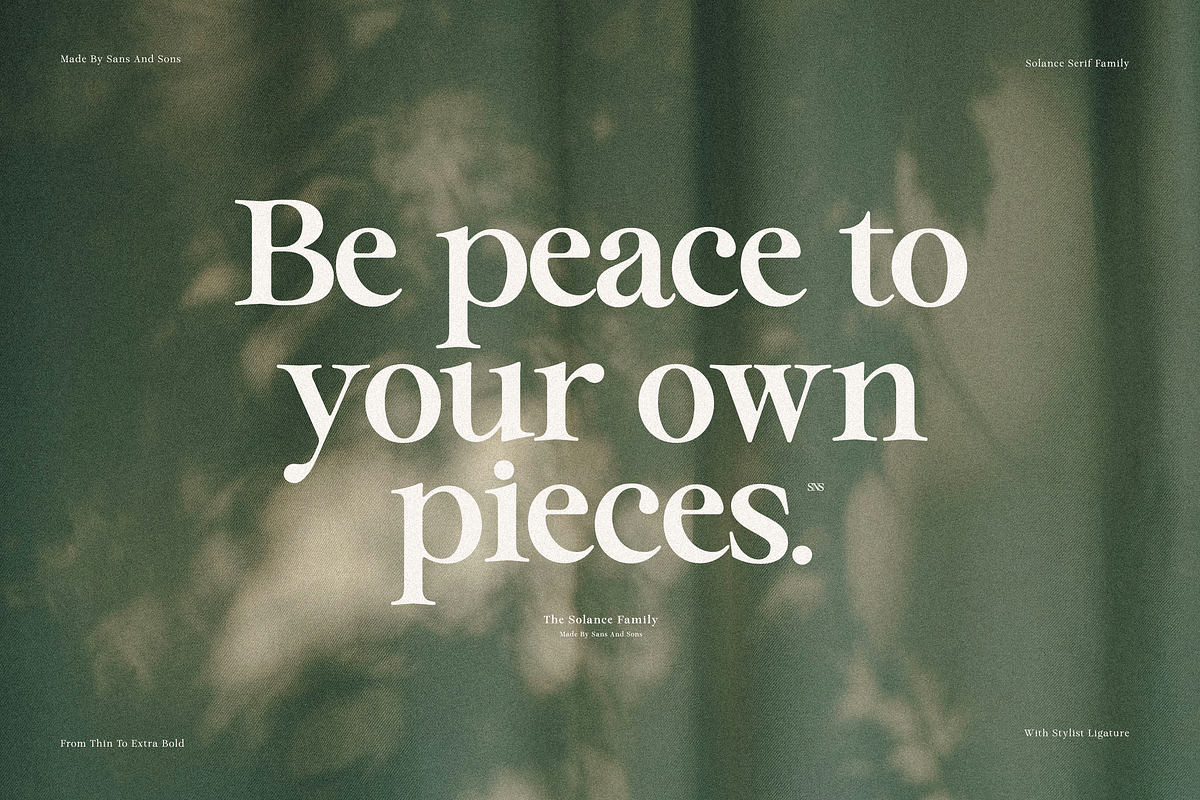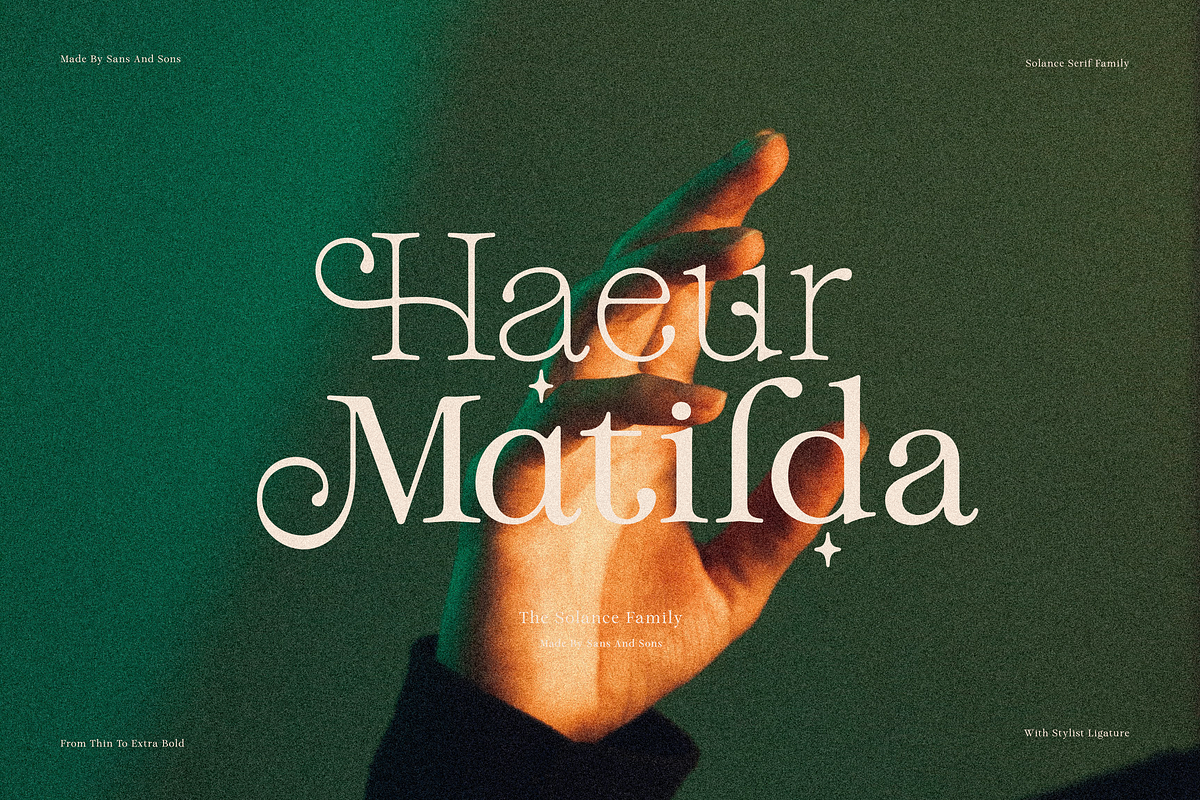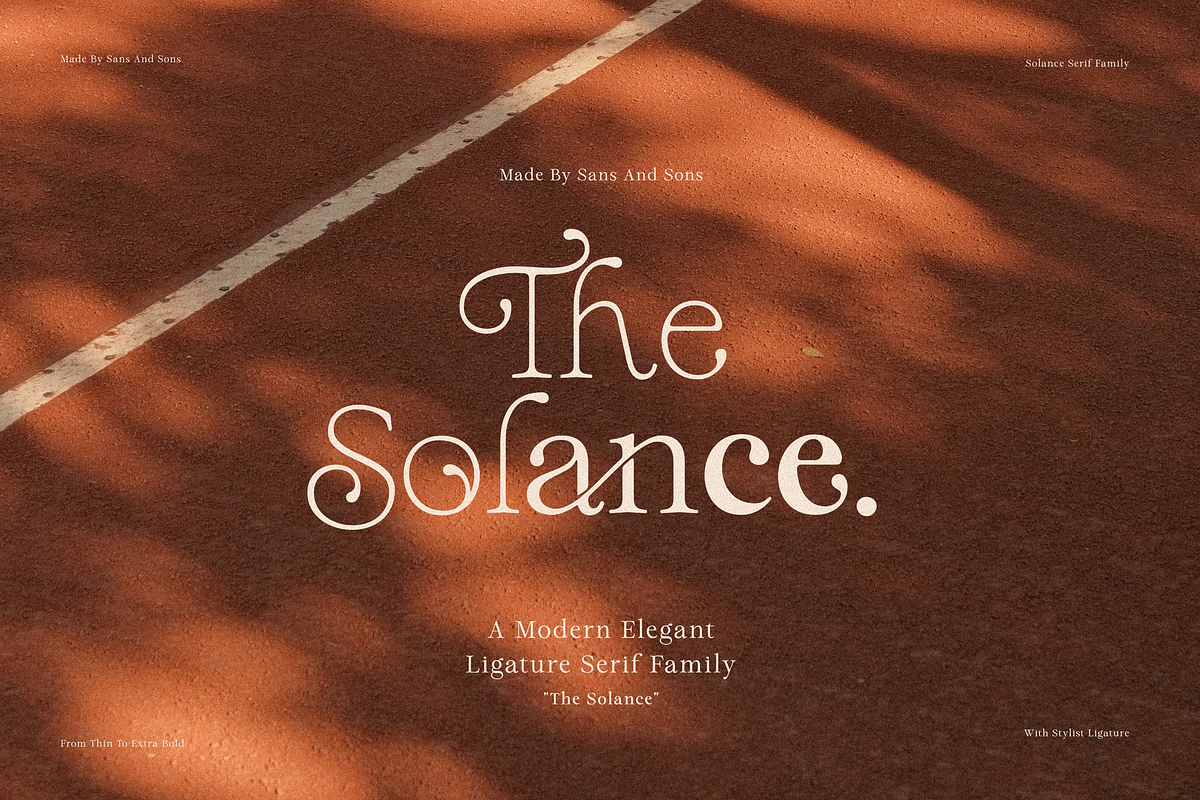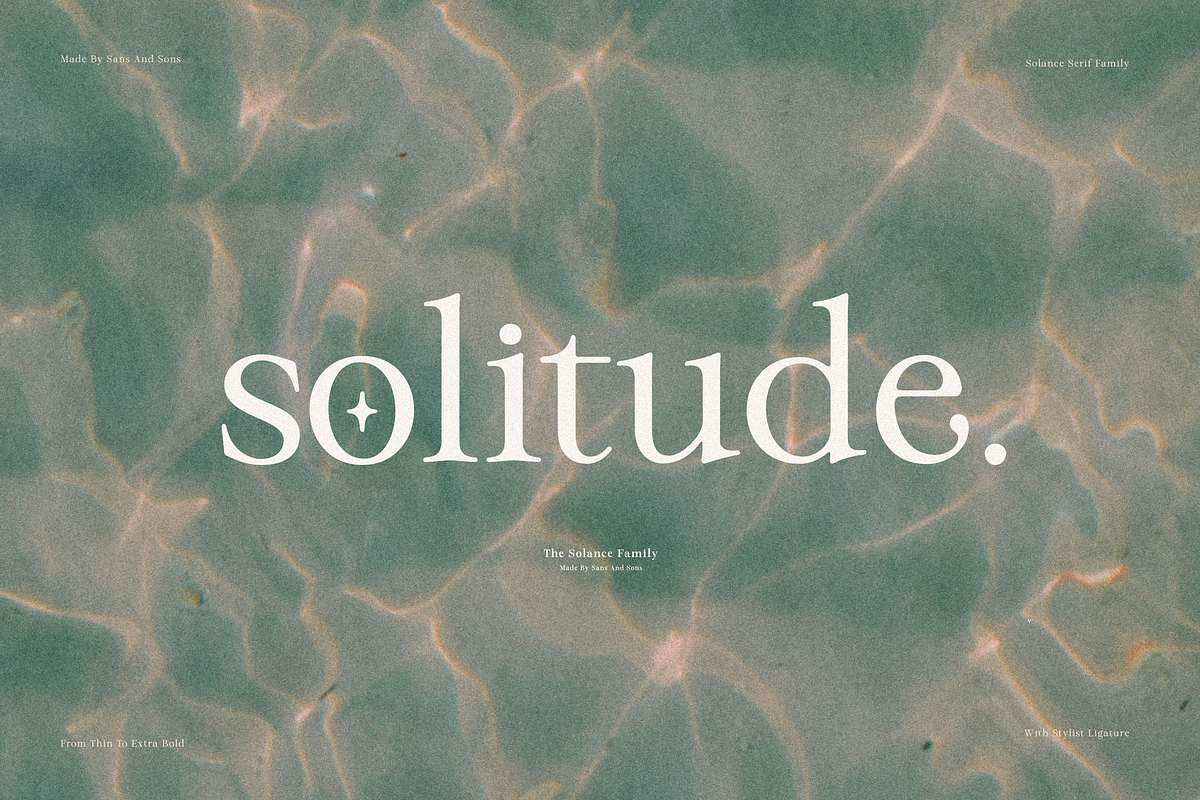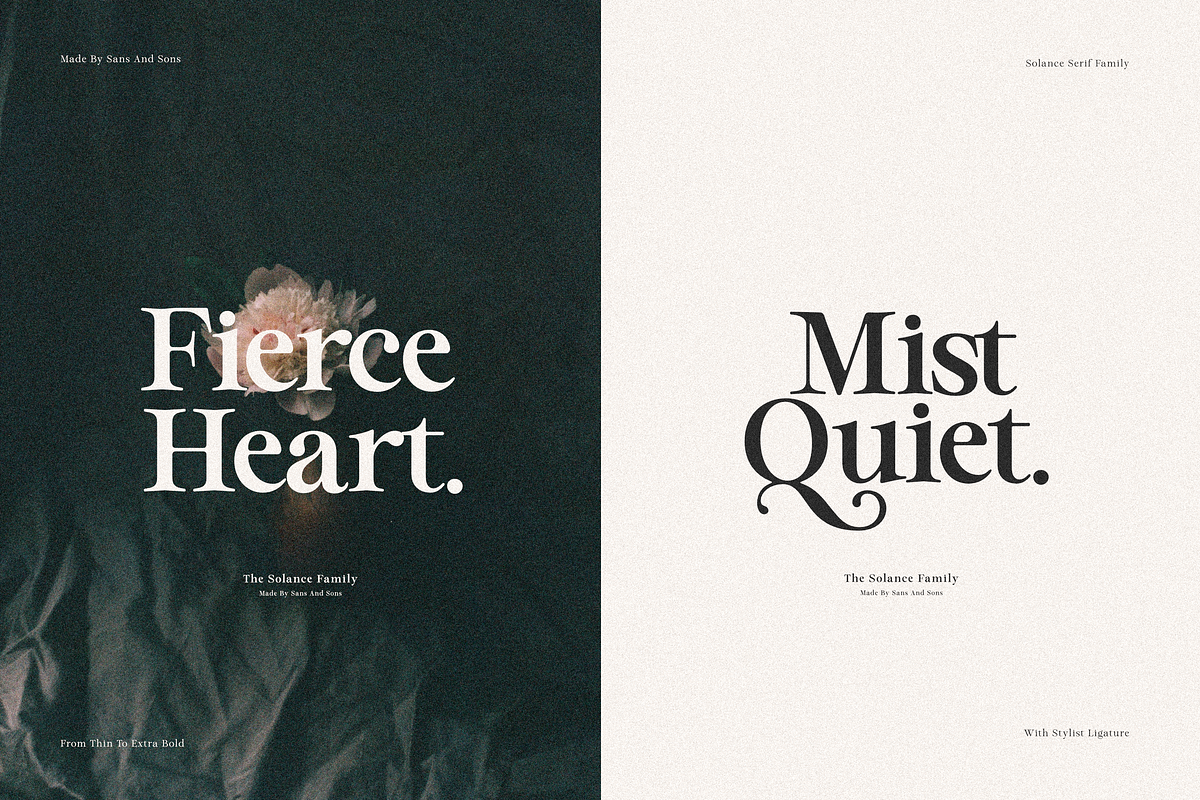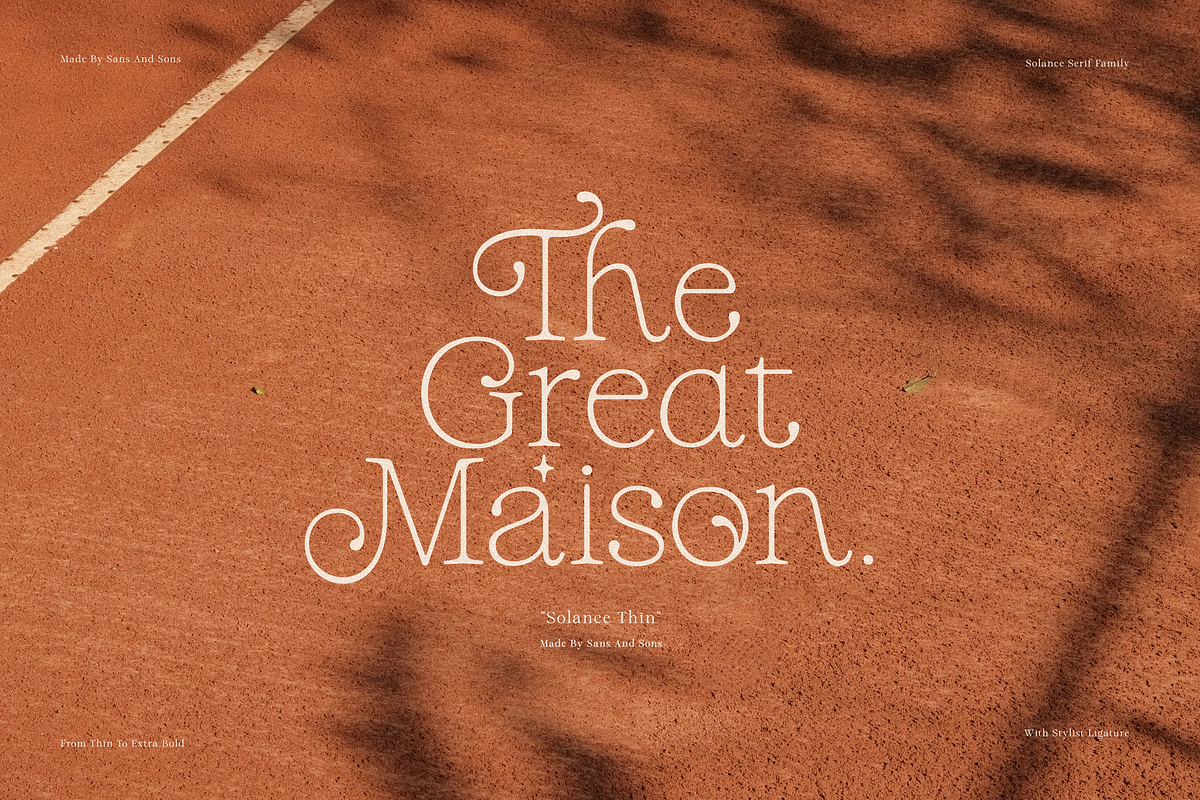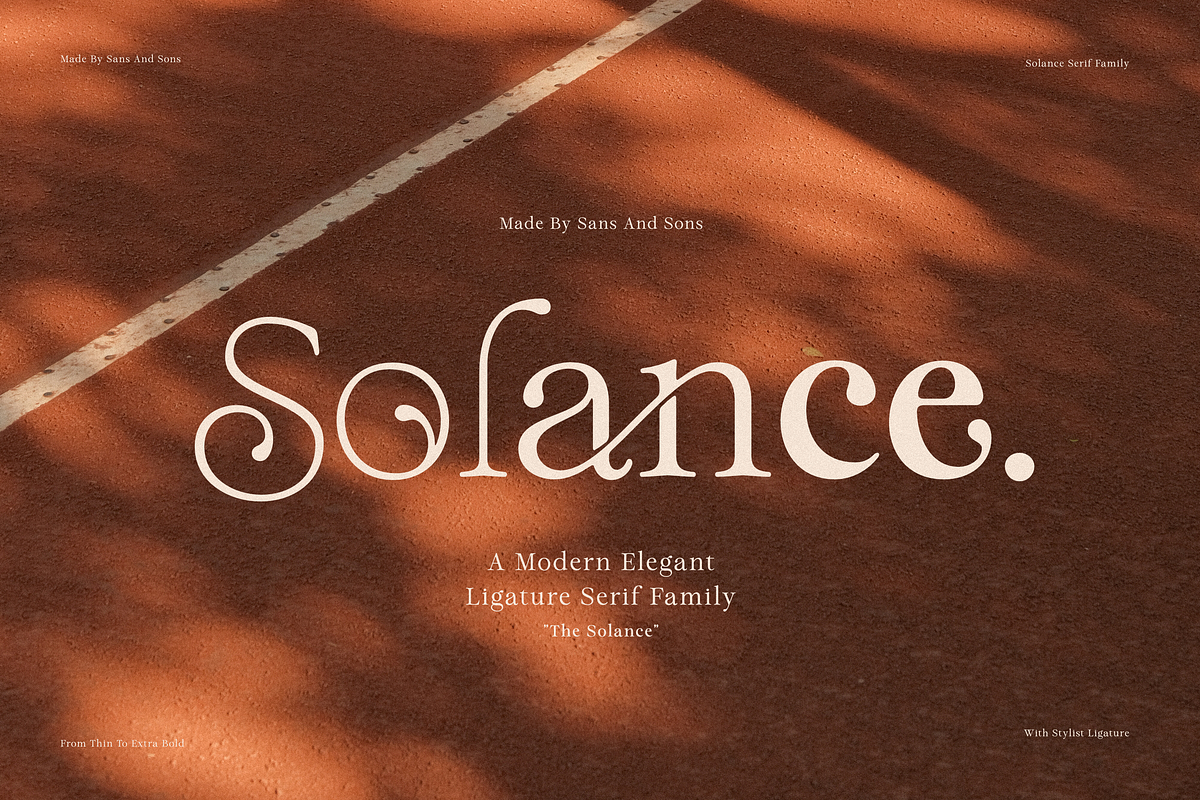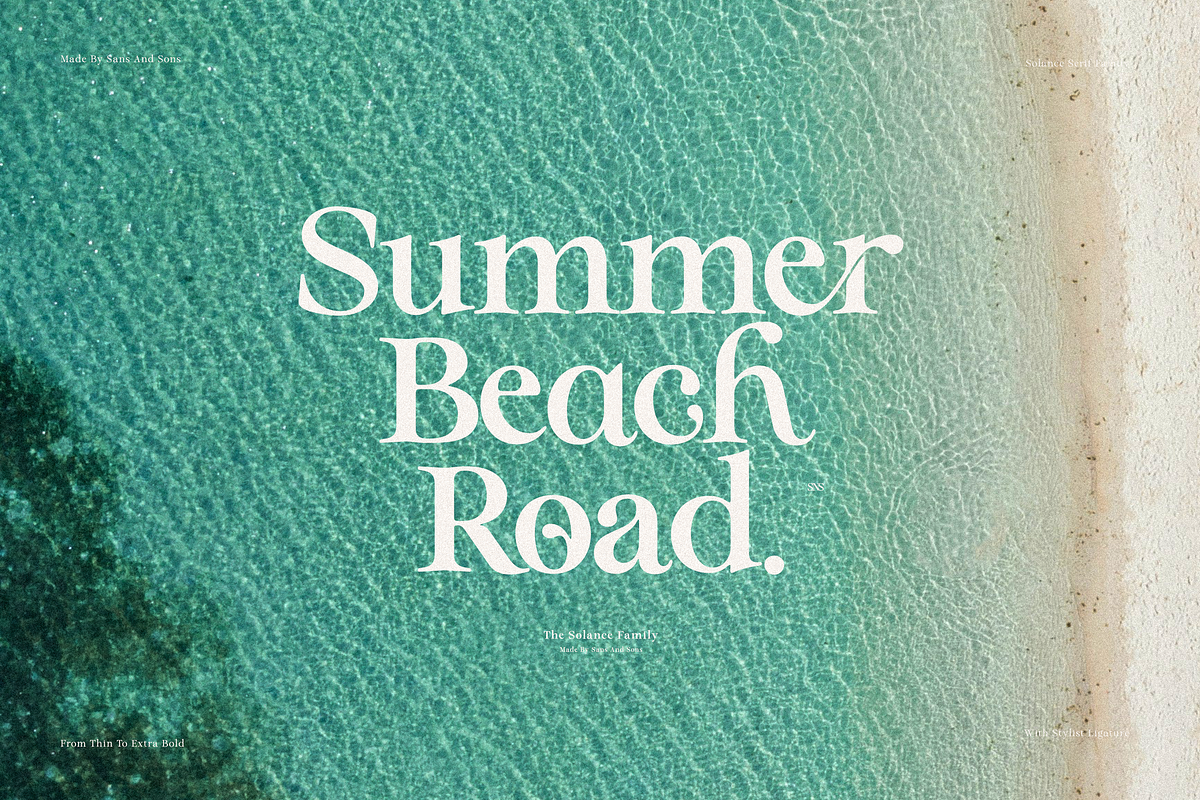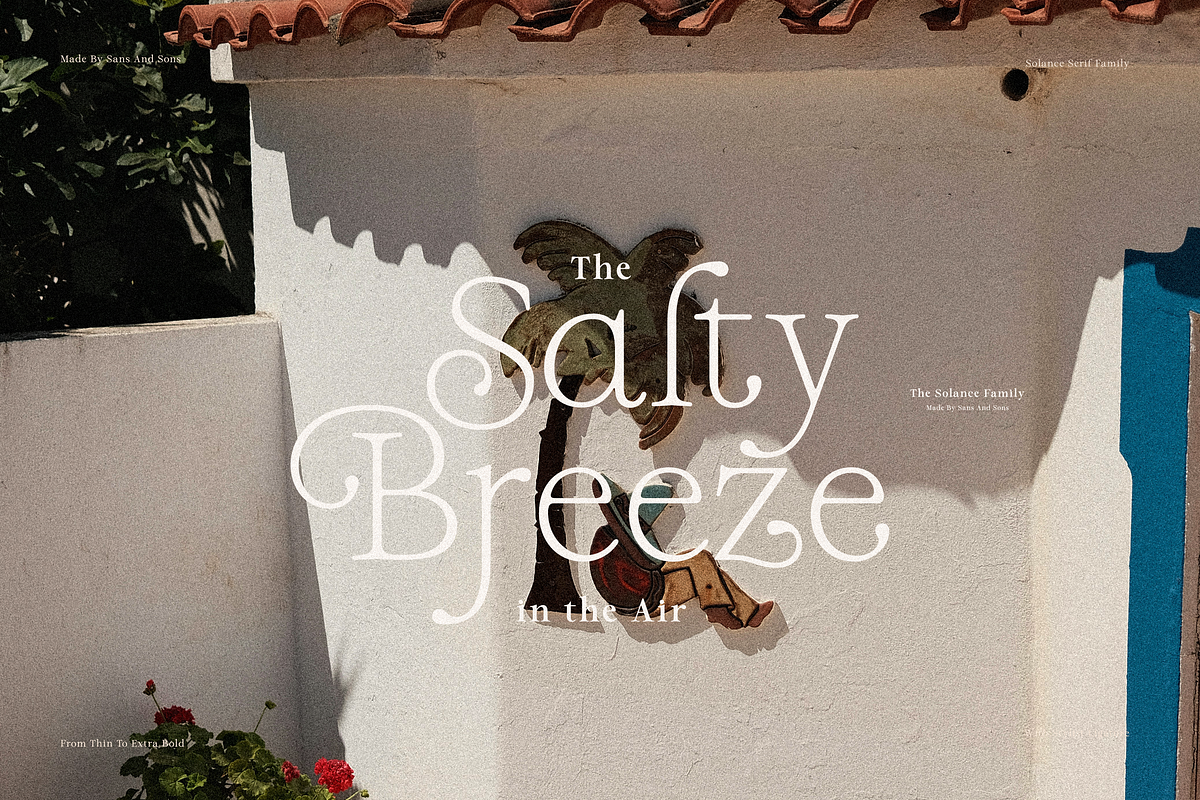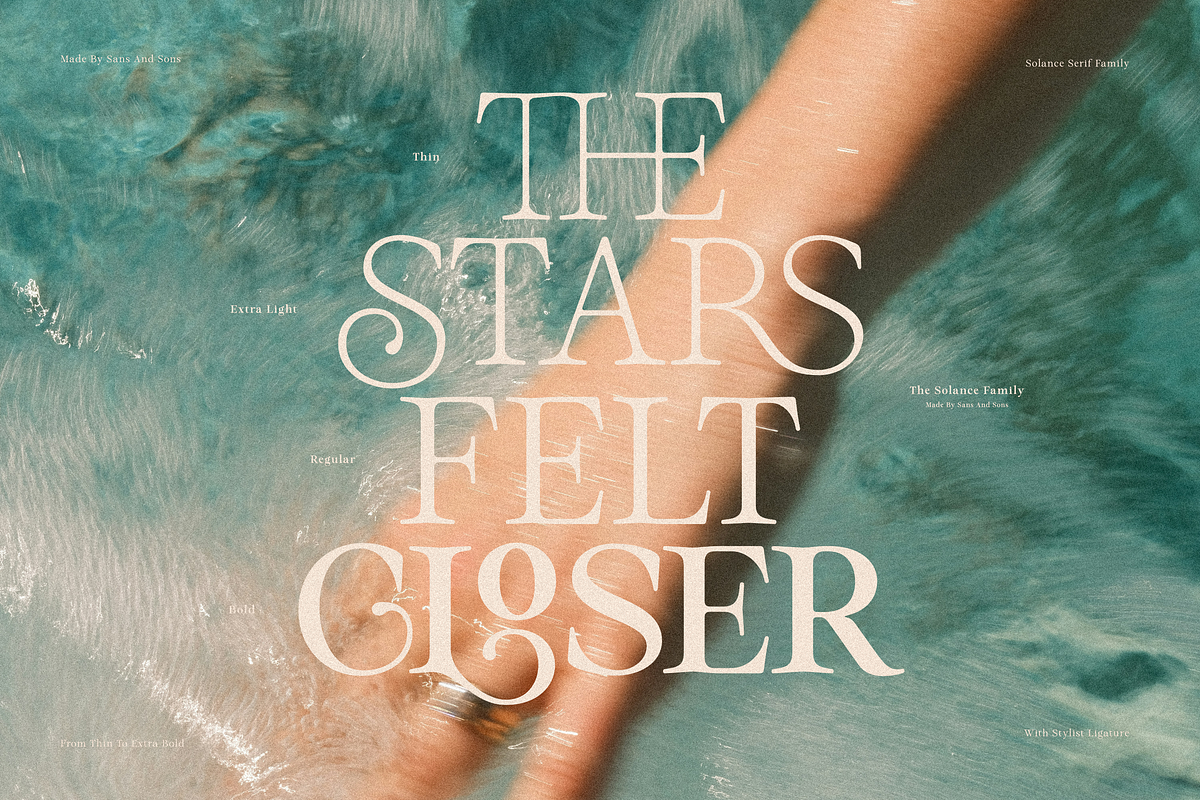
Solance Serif
The Solance – Elegant Serif Font Family
The Solance is an elegant serif font family with a soft and timeless feel. Designed with graceful curves and balanced contrast, it brings a calm and refined touch to any creative project.
With 7 styles from Thin to ExtraBold, The Solance gives you the flexibility to create beautiful and consistent typography for branding, editorials, logos, packaging, invitations, social media, and more.
Why You’ll Love The Solance
• Soft and elegant serif style • 7 versatile styles from Thin to ExtraBold • Comfortable readability with refined details • Perfect for branding, editorials, packaging, and invitations • Suitable for both print and digital projects
Whether you're building a modern brand identity or designing a timeless editorial layout, The Solance brings elegance, balance, and character to every composition.